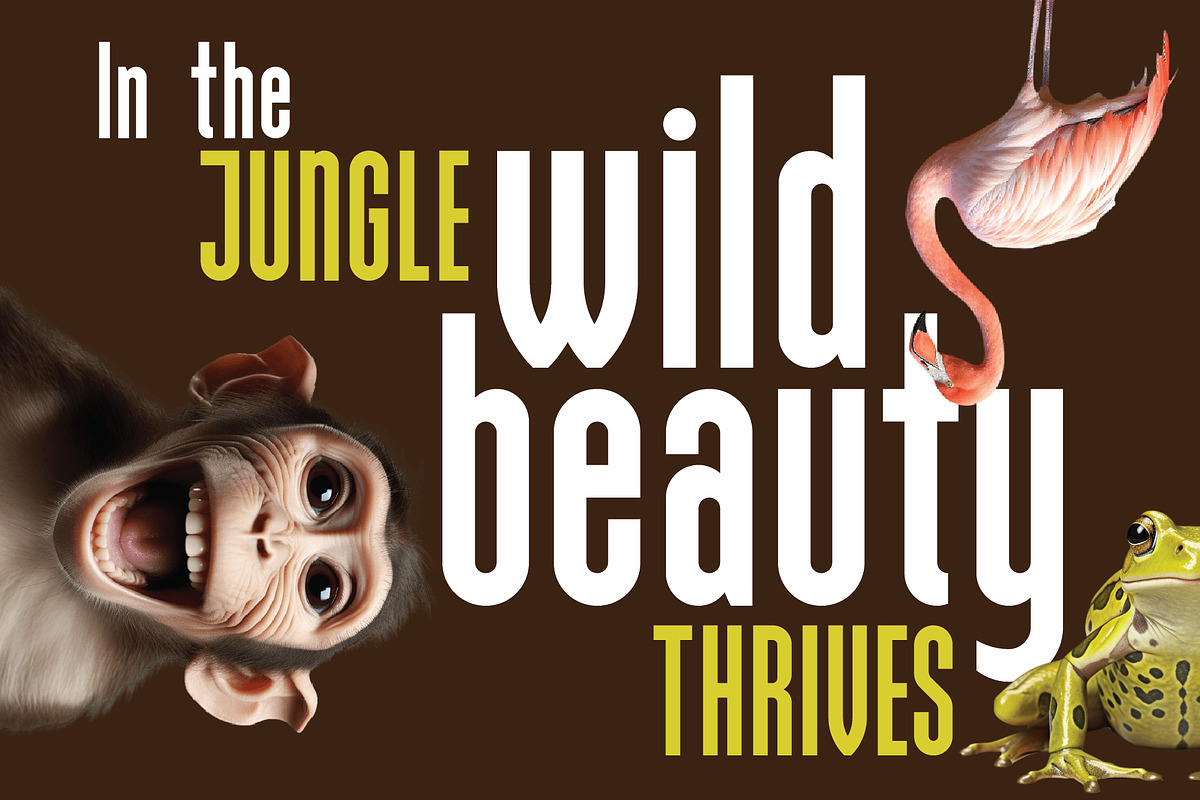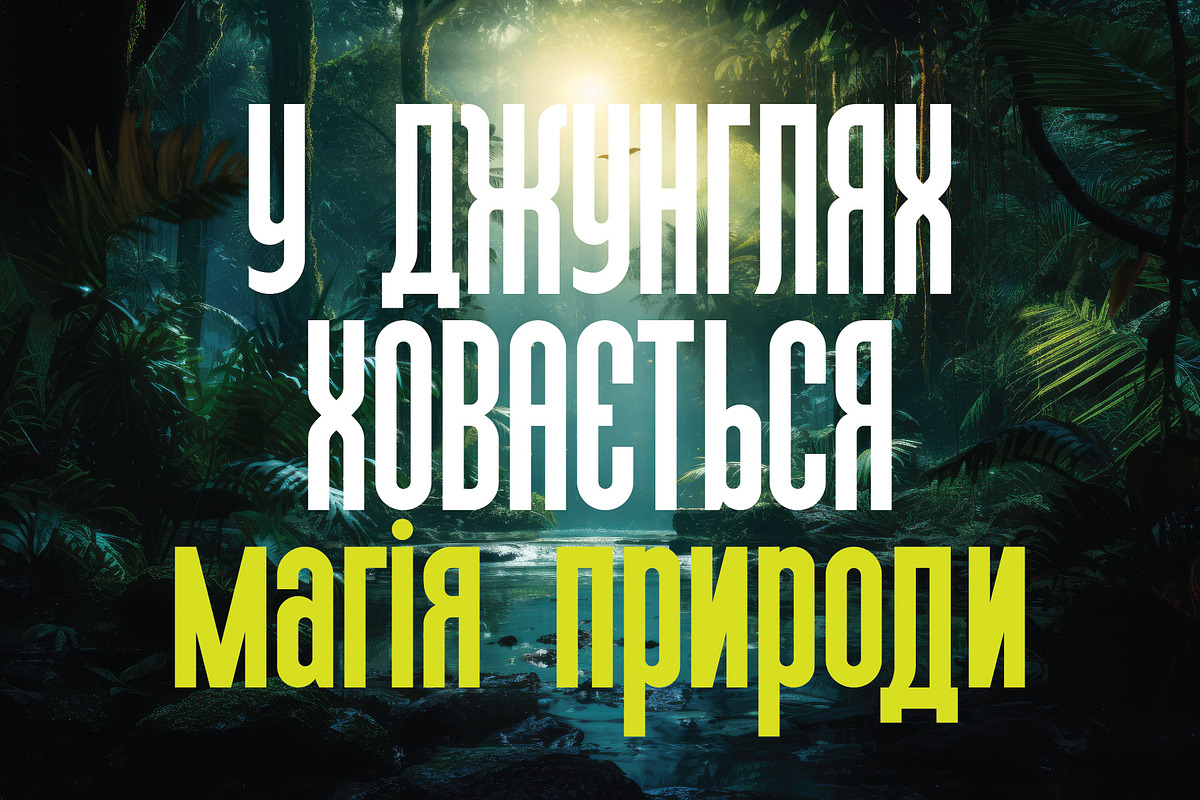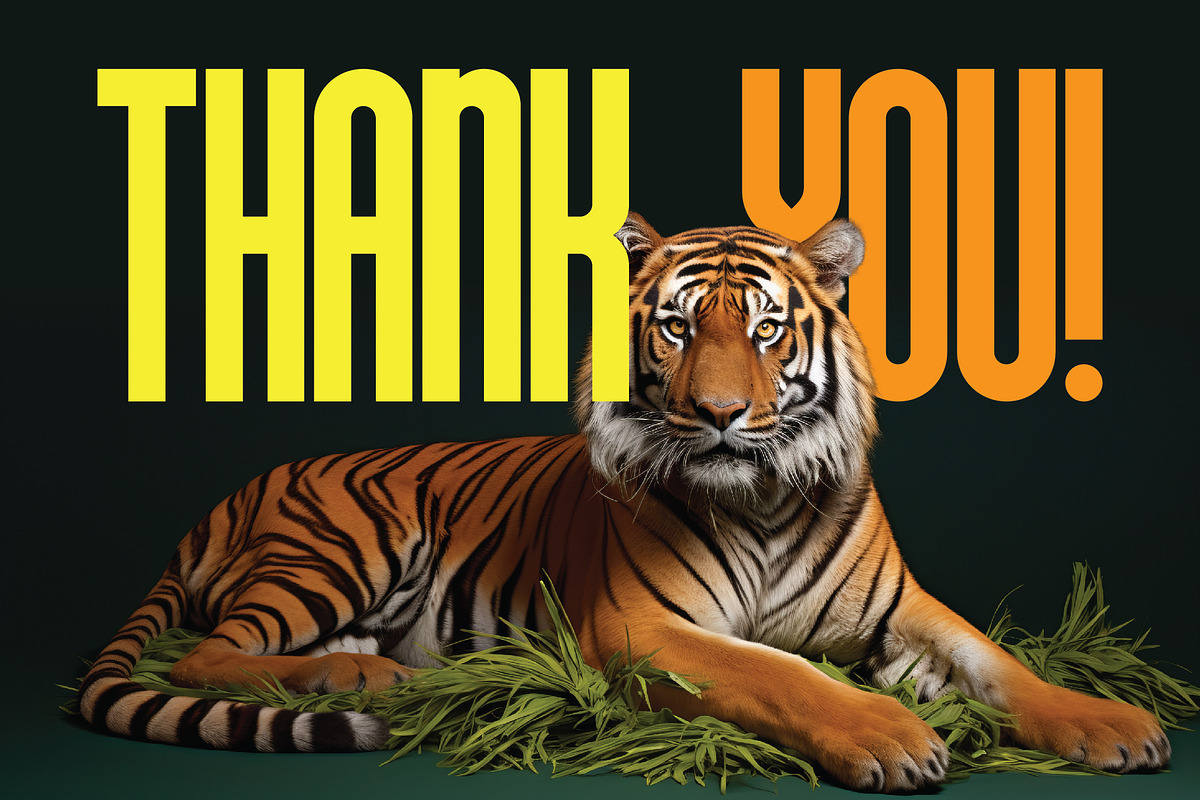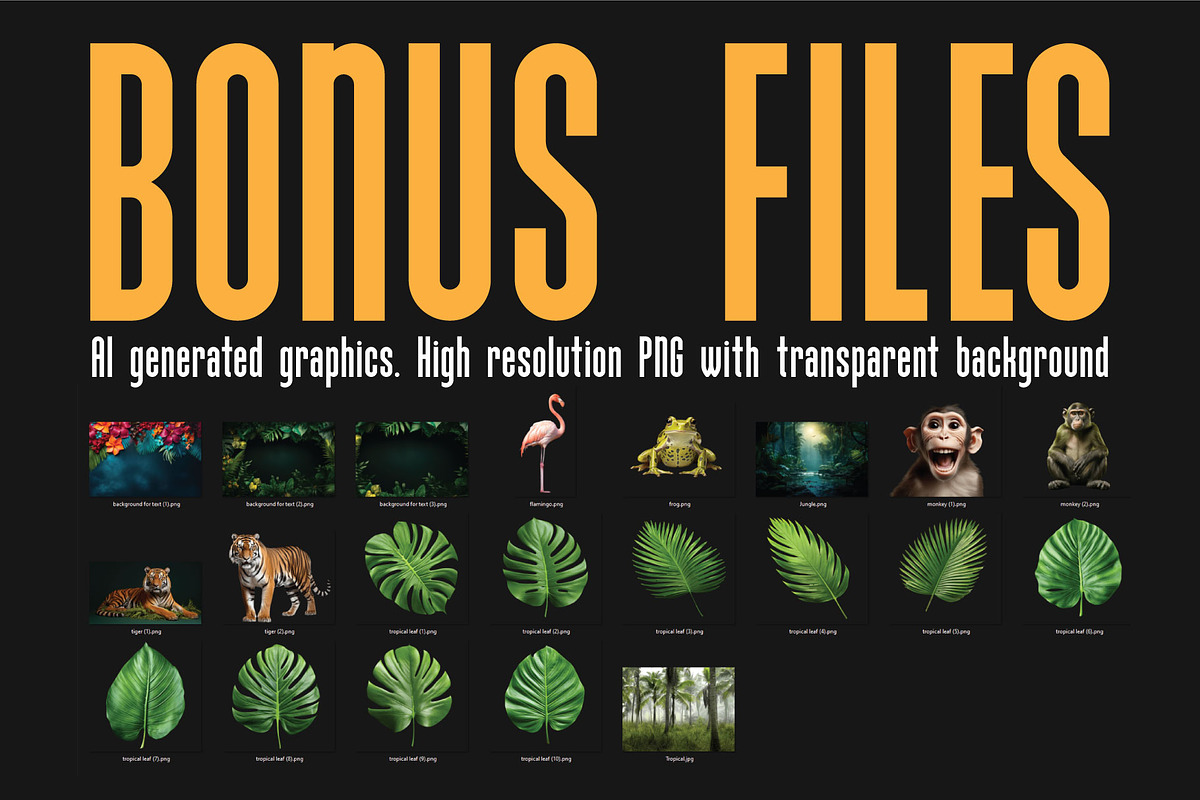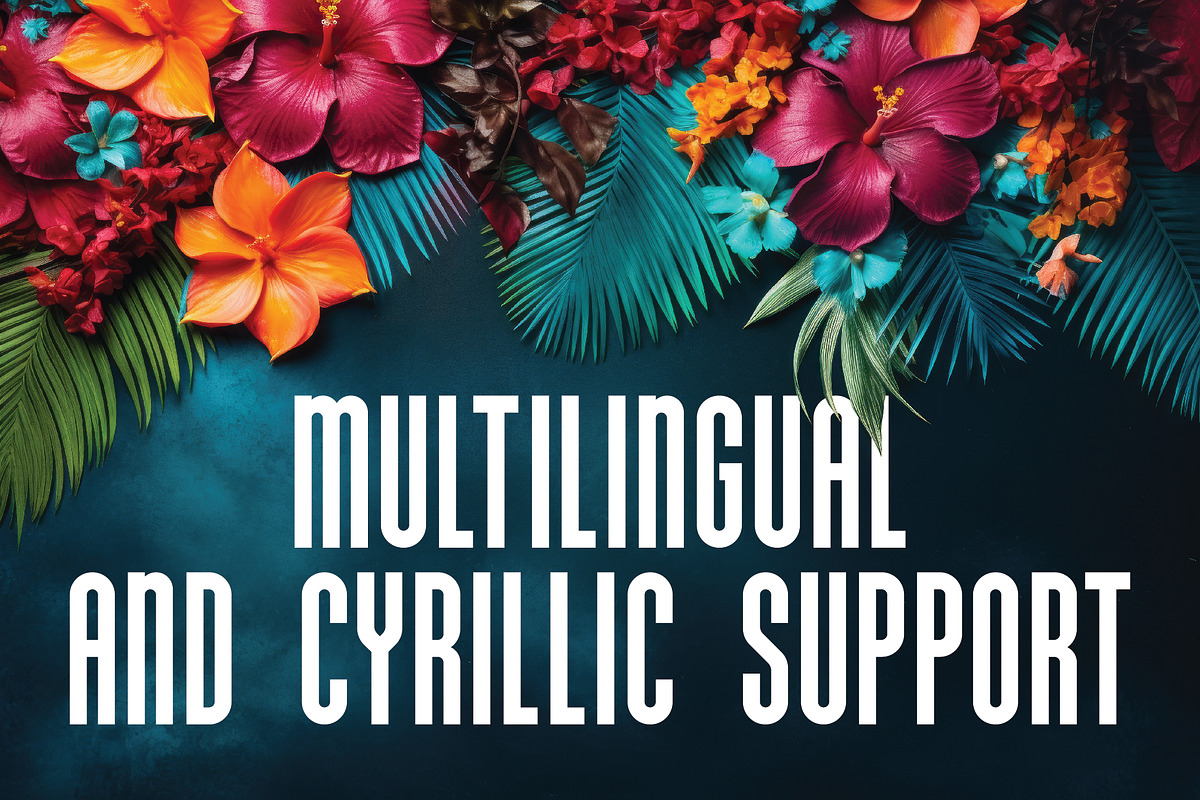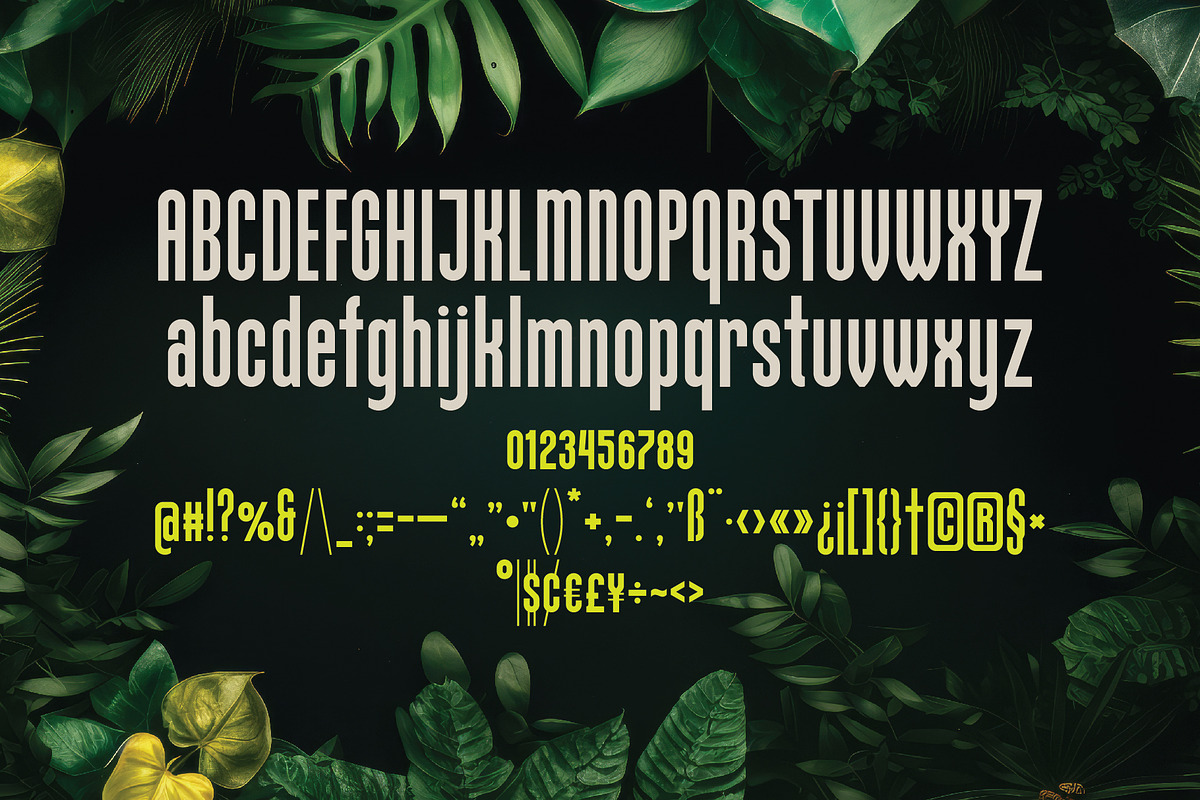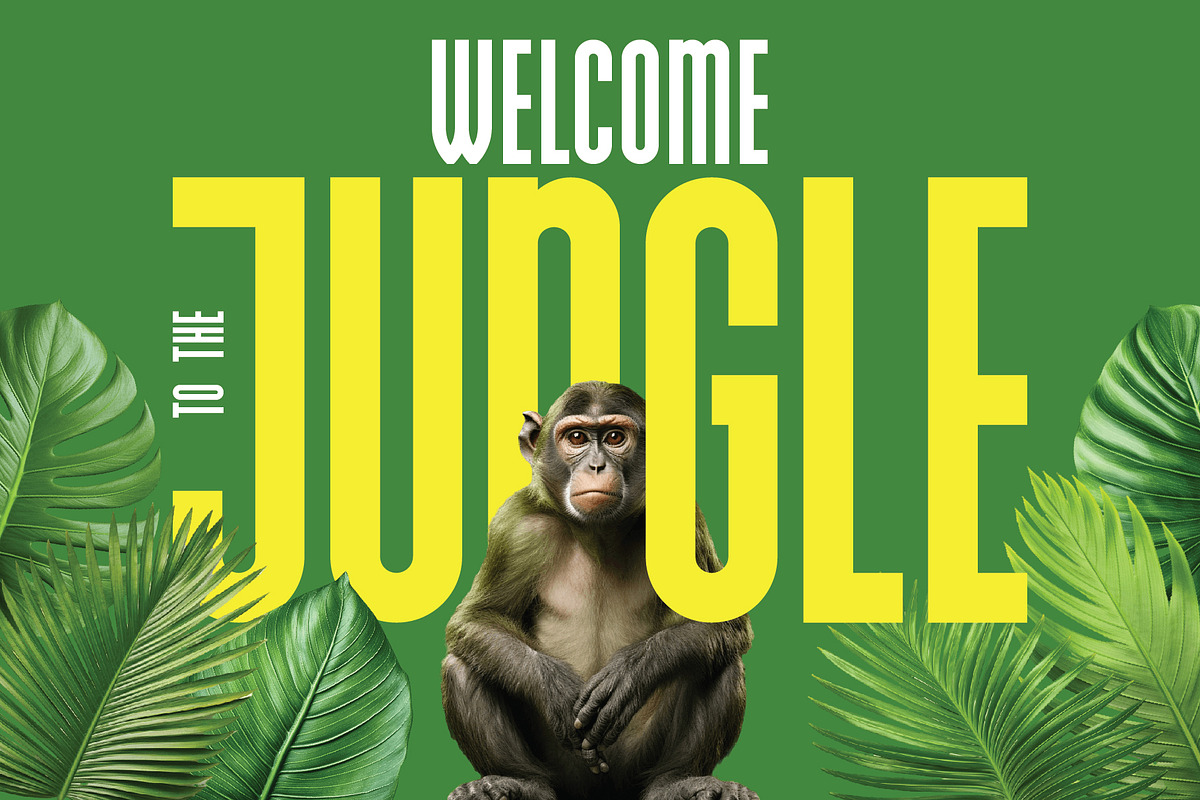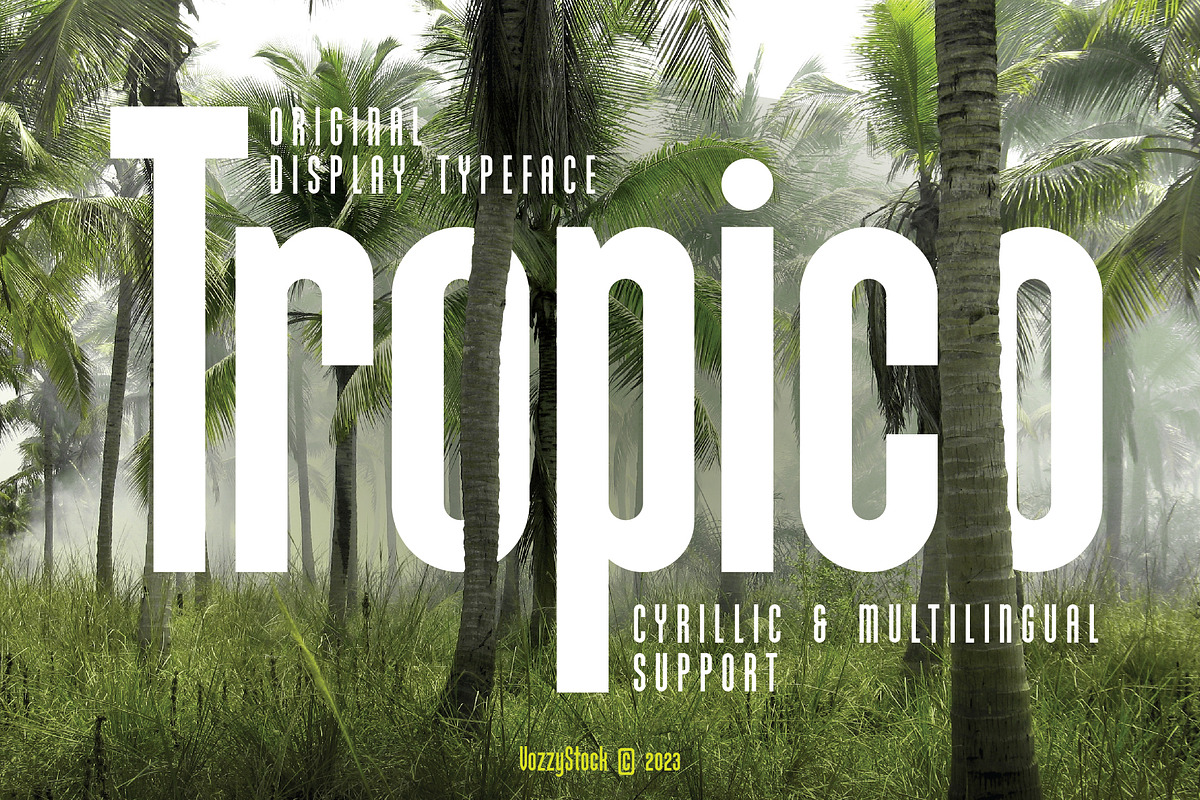
Tropico
Introducing Tropico - an elegant and clean typeface with a slim and slightly elongated design. Tropico is a sans-serif font, perfect for projects that require a refined and modern look. It features both uppercase and lowercase letters, along with numerals and additional symbols, making it versatile for various design needs.
Tropico also offers multilingual support, including Cyrillic characters, to accommodate a wide range of languages. The font is available in OTF, TTF, and WOFF formats, ensuring compatibility with different design software and platforms.